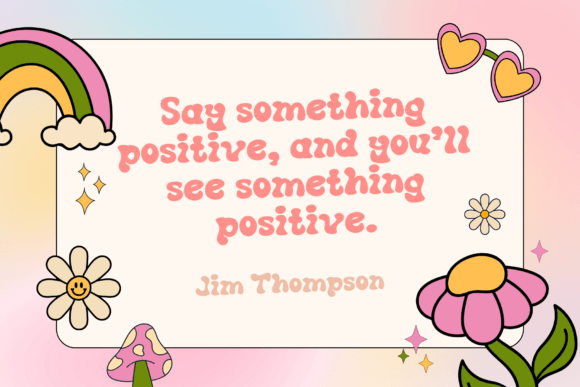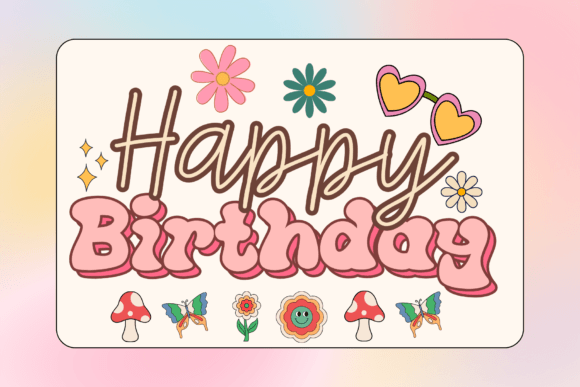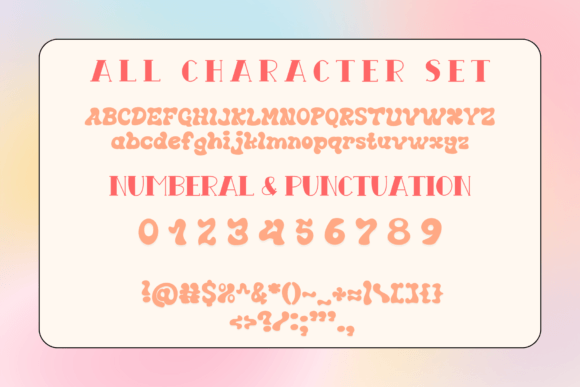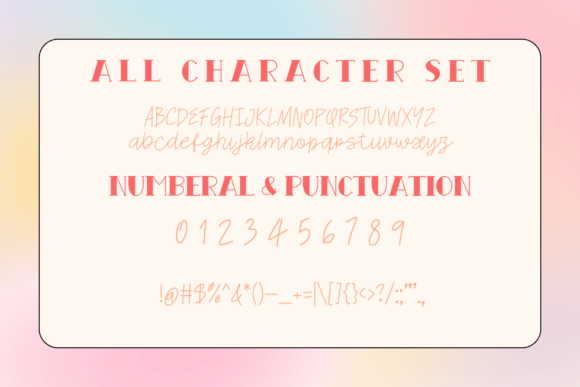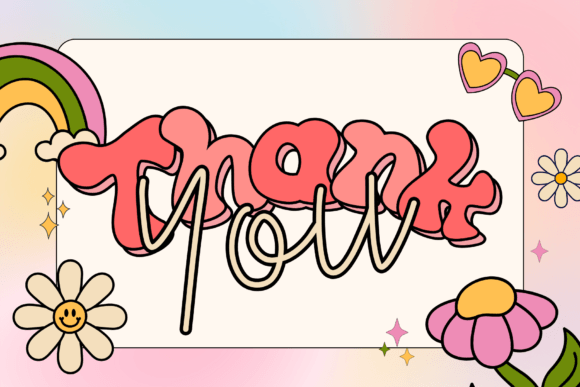
Funky Star Duo Font: Elevate Your Designs with a Groovy Twist
Are you on the hunt for a font that embodies the spirit of the 60s and 70s? Look no further than the Funky Star Duo Font, a stylish and retro duo font that combines a display and script typeface to create a truly unique and eye-catching aesthetic. This fantastic font is perfect for designers and crafters who want to add a touch of playfulness and authenticity to their projects.
What is Funky Star Duo Font?
Funky Star Duo Font is a carefully crafted font that pairs a bold display typeface with a flowing script font. The display font is perfect for headlines, titles, and other attention-grabbing elements, while the script font adds a touch of elegance and sophistication to your designs. Together, they create a look that is both cool and groovy, evoking the spirit of the hippie era.
Perfect for Hippie-Inspired Designs
If you’re looking to create designs that capture the essence of the 60s and 70s, Funky Star Duo Font is the perfect choice. The font’s playful and carefree vibe makes it ideal for designs that require a touch of nostalgia and whimsy. Whether you’re creating posters, flyers, or social media graphics, this font is sure to transport your audience back to a bygone era.
The versatility of Funky Star Duo Font is one of its standout features. This font can be used for a wide range of design projects, including:
- Blog posts: Add a touch of personality to your blog with Funky Star Duo Font.
- Logos and branding: Create a memorable brand identity with this unique font.
- Ads: Grab attention with bold and eye-catching headlines.
- Invitations and greeting cards: Add a touch of whimsy to your invitations and cards.
- Planners and photo albums: Create beautiful and functional designs for personal use.
- Decorations: Use Funky Star Duo Font to add a touch of personality to your home decor.
Why Choose Funky Star Duo Font?
So why choose Funky Star Duo Font over other fonts? Here are just a few reasons:
- Unique aesthetic: Funky Star Duo Font offers a truly unique and eye-catching aesthetic that will set your designs apart.
- Playful and authentic: This font embodies the spirit of the 60s and 70s, adding a touch of playfulness and authenticity to your designs.
- Versatile: Funky Star Duo Font can be used for a wide range of design projects, from blogs and logos to ads and invitations.
Tips for Using Funky Star Duo Font
Here are a few tips for getting the most out of Funky Star Duo Font:
- Experiment with different colors: Funky Star Duo Font looks great in a variety of colors, so don’t be afraid to experiment and find the perfect hue for your design.
- Mix and match: Try pairing Funky Star Duo Font with other fonts to create a unique and eye-catching look.
- Keep it simple: Don’t overcomplicate your design – sometimes, less is more. Let Funky Star Duo Font speak for itself.
Funky Star Duo Font is a stylish and versatile font that is perfect for designers and crafters who want to add a touch of playfulness and authenticity to their projects. With its unique aesthetic and endless design possibilities, this font is sure to become a favorite in your design arsenal. So why wait? Download Funky Star Duo Font today and start creating groovy designs that will transport your audience back to a bygone era!